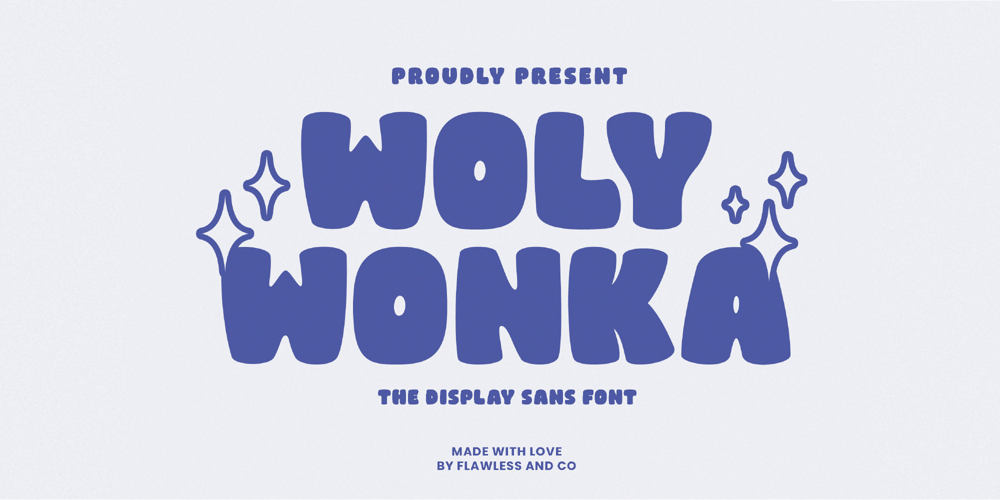
Woly Wonka Font Family was designed by Achmad Yani and published by Flawlessandco. Woly Wonka contains 1 styles and family package options. Introducing “Woly Wonka” – A Display Sans Font. Step into a world of whimsy and imagination with “Woly Wonka,” a captivating display sans font that adds a touch of playfulness to your designs.There’s some connected letters and some alternates that suitable for any graphic designs.This font support for some multilingual. Also contains uppercase A-Z and lowercase a-z, alternate character, numbers 0-9, and some punctuation.If you need help, just write me! Thanks so much for checking out my shop!